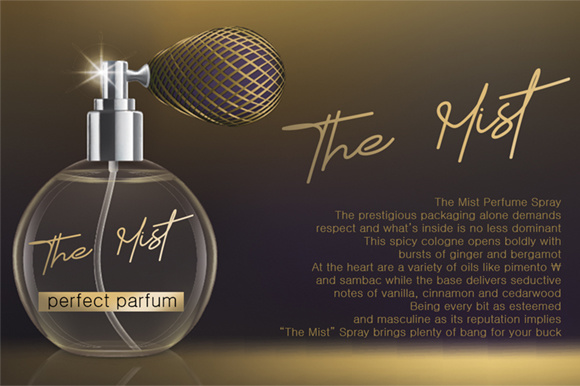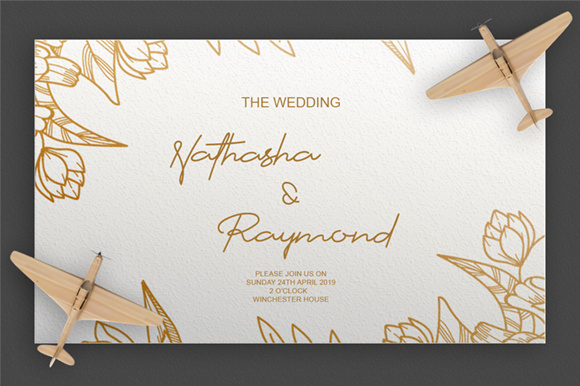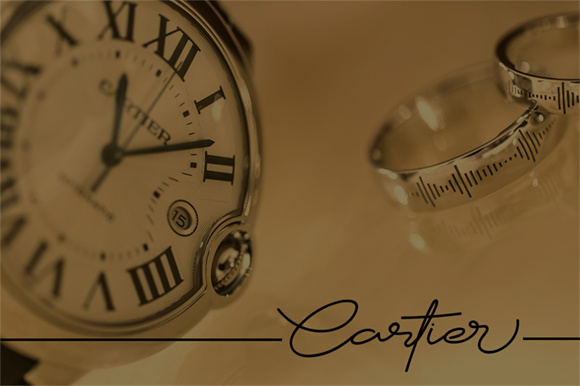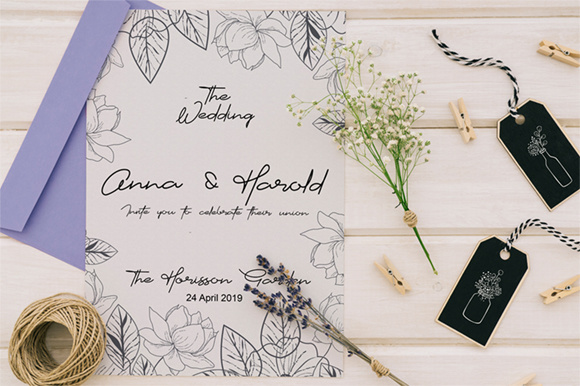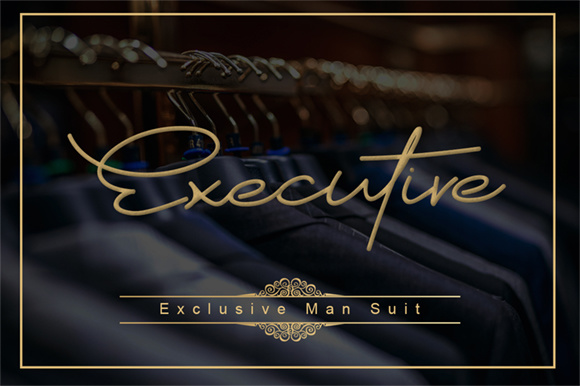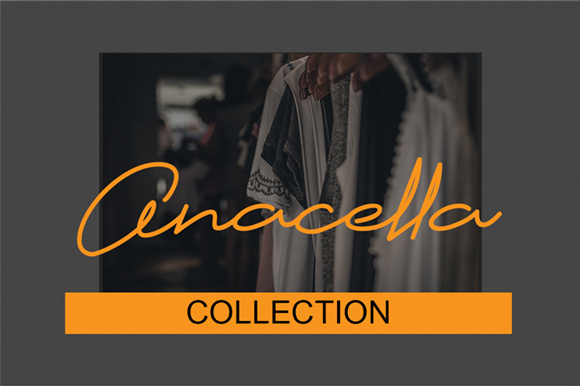
Introducing the Cartier Font: Elevate Your Typography with Modern Hand Lettering
The Cartier Font is a stunning modern hand lettering script that has taken the design world by storm. This beautiful font allows you to create breathtaking hand-made typography in an instant, making it a must-have for designers, crafters, and anyone looking to add a touch of elegance to their projects.
The Characteristics of the Cartier Font
The Cartier Font boasts a range of characteristics that make it stand out from other fonts. Its modern hand lettering style is both elegant and sophisticated, with flowing lines and curves that give it a sense of movement and fluidity. The font is highly legible, making it perfect for use in a variety of applications, from signage and branding to packaging and digital media.
What Makes the Cartier Font So Special?
So, what sets the Cartier Font apart from other fonts on the market? Here are just a few reasons why this font has become a favorite among designers and crafters:
- Unique and Elegant Design: The Cartier Font features a unique and elegant design that is sure to turn heads. Its modern hand lettering style is both stylish and sophisticated, making it perfect for use in high-end branding and design projects.
- Highly Legible: Despite its elegant design, the Cartier Font is highly legible, making it perfect for use in a variety of applications, from signage and branding to packaging and digital media.
- Instant Results: With the Cartier Font, you can create beautiful hand-made typography in an instant. No more spending hours trying to perfect your hand lettering skills – this font does all the work for you.
- Versatile: The Cartier Font is incredibly versatile, making it perfect for use in a wide range of applications, from digital media to print materials.
How to Use the Cartier Font in Your Design Projects
Using the Cartier Font in your design projects is easy. Here are a few tips to get you started:
- Pair it with Other Fonts: The Cartier Font pairs perfectly with other fonts, making it easy to create stunning typography combinations. Try pairing it with a bold sans-serif font for a striking contrast.
- Experiment with Different Sizes: The Cartier Font looks great in a variety of sizes, from large headings to smaller body text. Experiment with different sizes to find the perfect fit for your project.
- Use it in Digital Media: The Cartier Font is perfect for use in digital media, from social media graphics to website headers. Its modern hand lettering style is sure to make your digital media stand out.
The Benefits of Using the Cartier Font
There are many benefits to using the Cartier Font in your design projects. Here are just a few:
- Saves Time: With the Cartier Font, you can create beautiful hand-made typography in an instant, saving you hours of time and effort.
- Elevates Your Design: The Cartier Font is sure to elevate your design projects, adding a touch of elegance and sophistication to your typography.
- Perfect for Branding: The Cartier Font is perfect for use in branding projects, from logos to packaging. Its modern hand lettering style is sure to make your brand stand out.
The Cartier Font is a stunning modern hand lettering script that is sure to elevate your design projects. With its unique and elegant design, high legibility, and instant results, this font is a must-have for designers, crafters, and anyone looking to add a touch of elegance to their projects. Whether you’re working on a branding project, creating digital media, or simply looking for a beautiful font to use in your craft projects, the Cartier Font is the perfect choice.